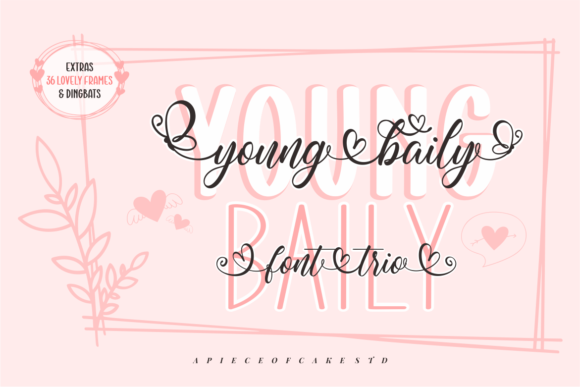
**Step into the Realm of Elegance with Young Baily Trio: The Font that Evokes Enchantment**
In the realm of digital artistry, fonts hold the power to transform words into captivating expressions of beauty and charm. Among this enchanting world of typography, Young Baily Trio font stands as a testament to the magic that fonts can weave. Crafted by the skilled hands of Piece of Cake, this font family is a symphony of grace, elegance, and romance, designed to elevate your creative projects to new heights of sophistication.
**A Romantic Promenade Through the World of Fonts**
Imagine a world where every written word dances across the screen with a touch of allure, a hint of charm, and an undeniable sense of romance. Young Baily Trio is your gateway to this enchanting realm, where your words become delicate brushstrokes, painting pictures of love, longing, and heartfelt emotions. Each letterform is a work of art, meticulously designed with a flair for the dramatic, yet retaining a timeless elegance that will leave your audience spellbound.
**The Perfect Companion for a Myriad of Creative Endeavors**
Whether you're crafting heartfelt greeting cards, designing eye-catching headlines, or embarking on ambitious branding projects, Young Baily Trio is your trusted companion, ready to add a touch of magic to every stroke of your imagination. Its versatility knows no bounds, seamlessly adapting to a wide range of design aesthetics, from classic and vintage to modern and contemporary. Let the Young Baily Trio font family be your muse, inspiring you to create designs that resonate with your audience, leaving a lasting impression that will ignite their hearts and capture their attention.
**A Font that Speaks to the Heart**
In a world saturated with digital noise, it's the emotional connection that truly sets your creations apart. Young Baily Trio is the key to unlocking this emotional resonance, evoking a sense of nostalgia, whimsy, and heartfelt longing with every letterform. It's a font that speaks directly to the heart, stirring emotions and leaving an unforgettable impact on your audience.
**Experience the Young Baily Trio Difference Today**